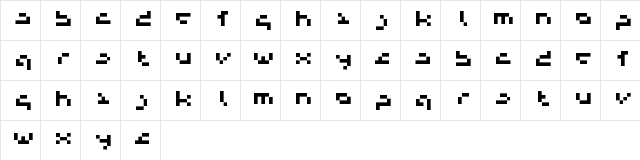
Sendai Smallprint Regular
Design Context for Sendai Smallprint Typeface
Sendai Smallprint offers clean, dependable letterforms without strong stylistic allegiance, making it a practical choice for designers who need flexibility.